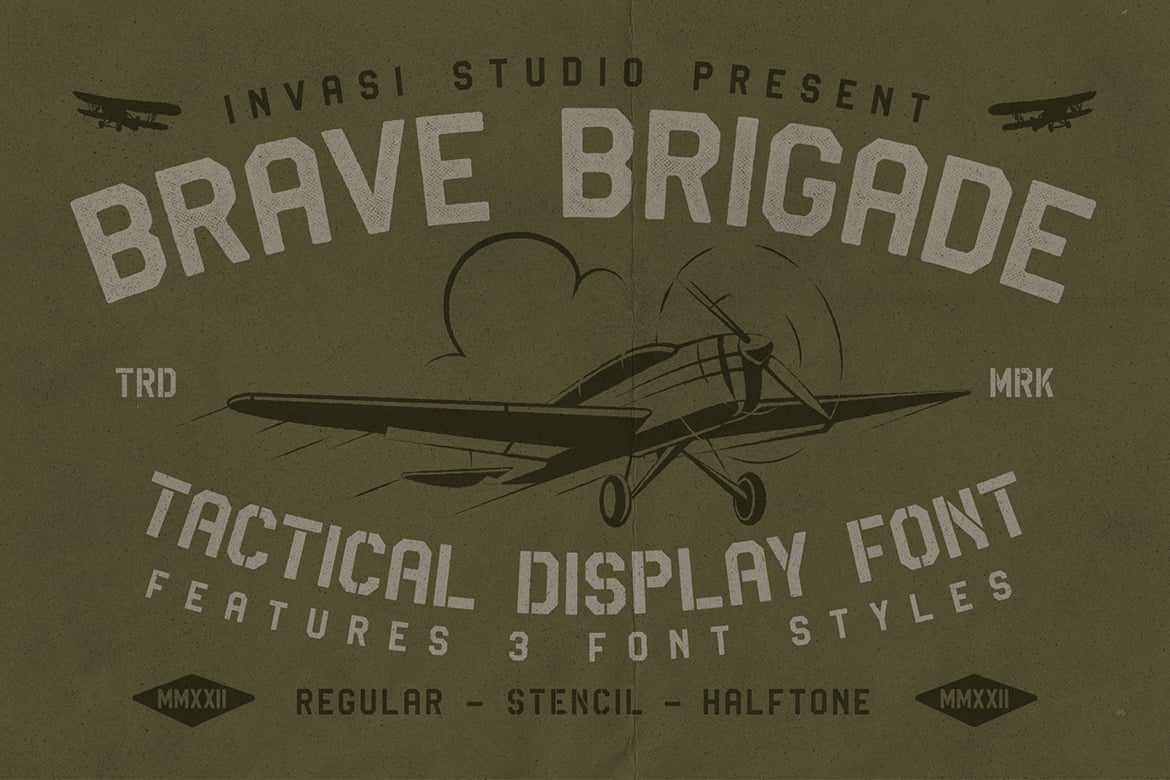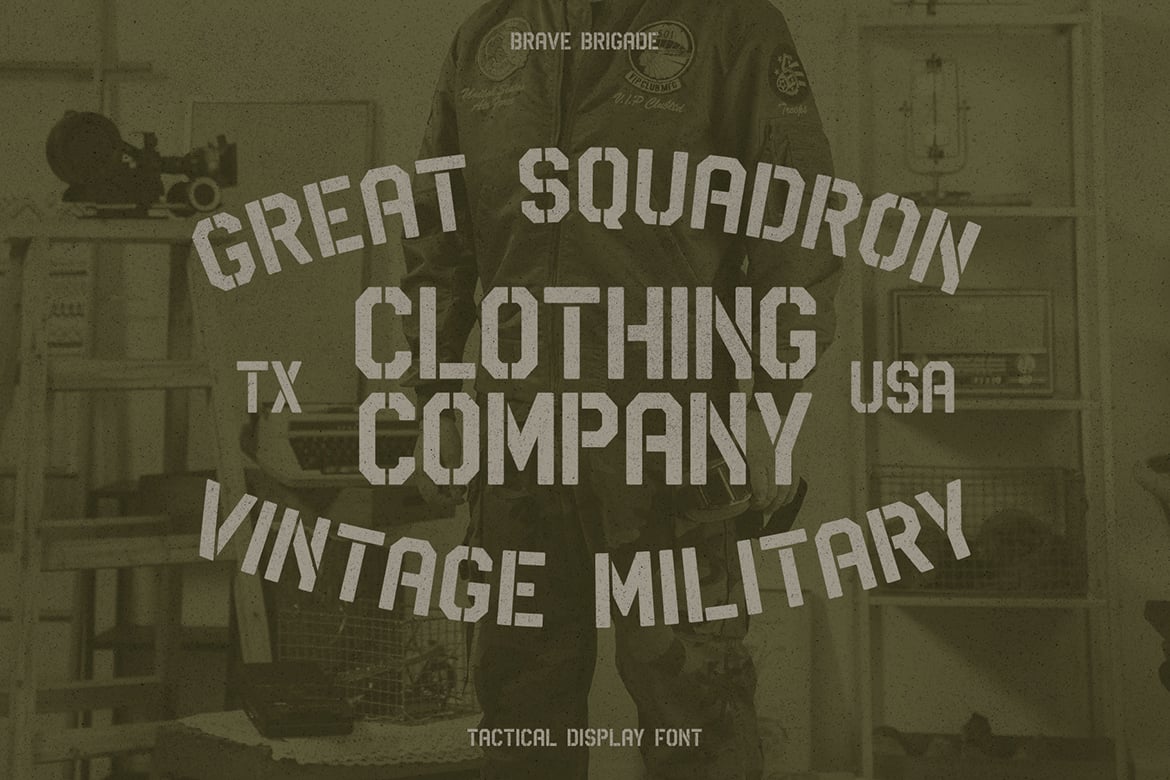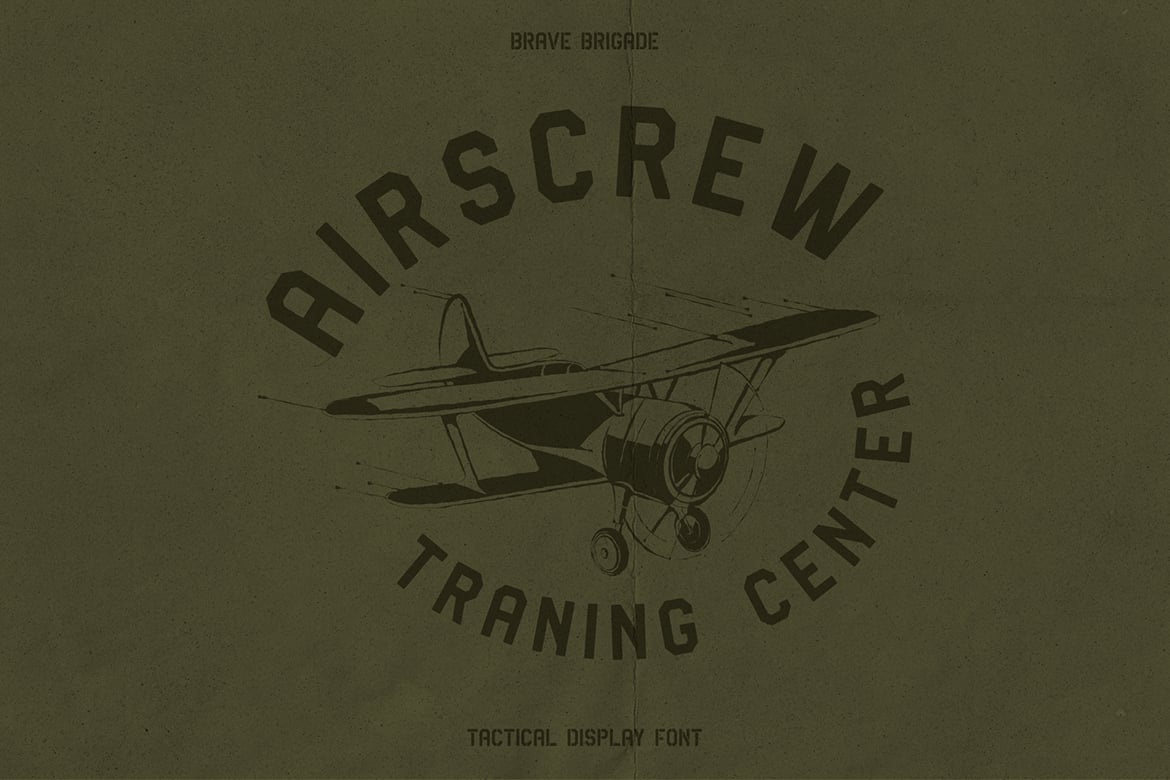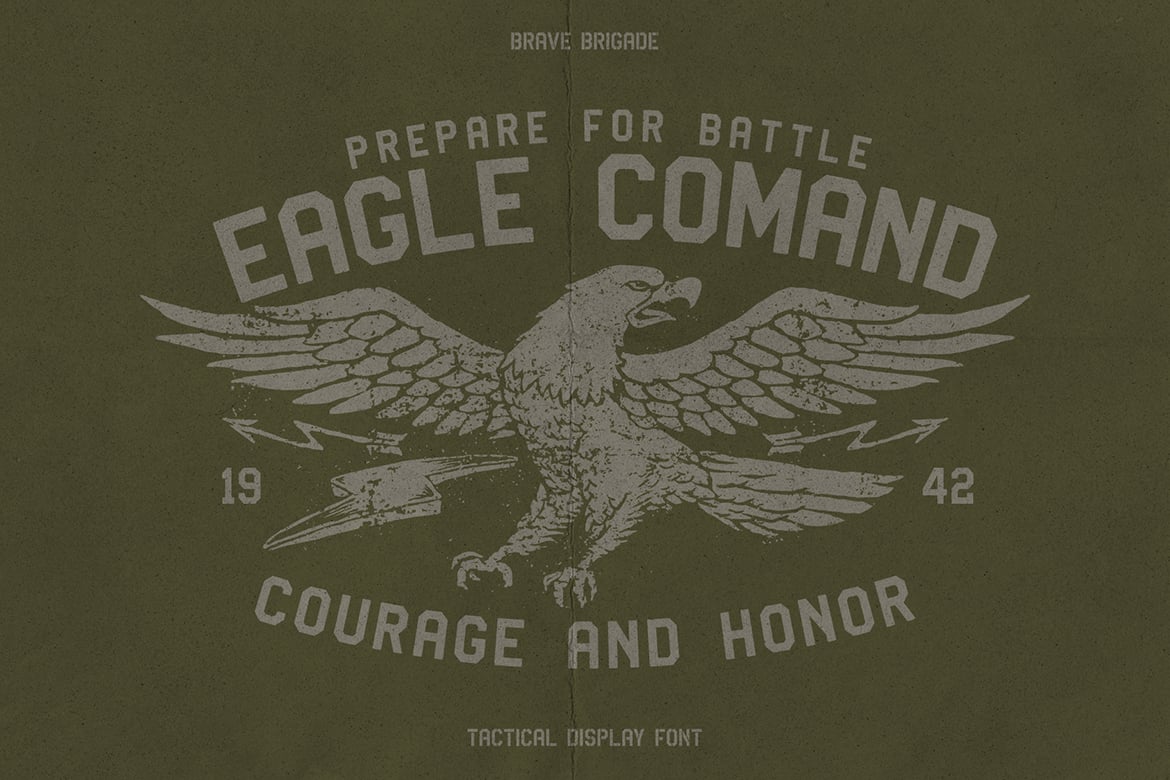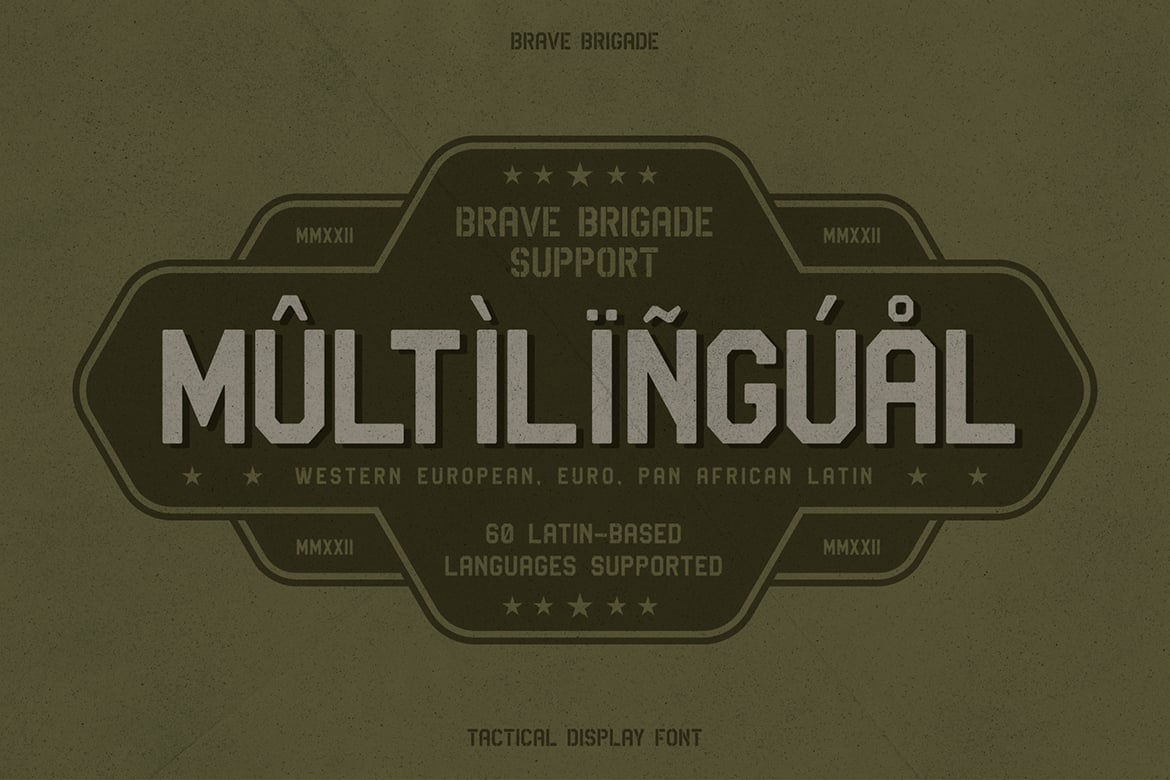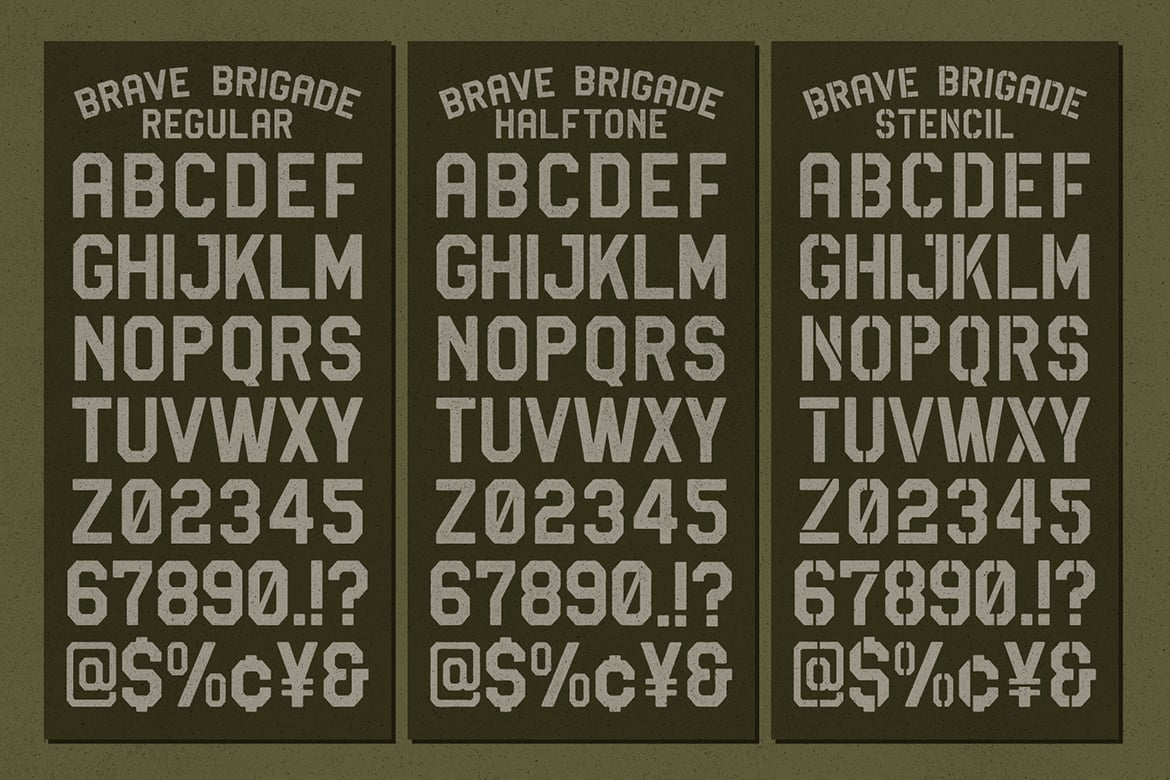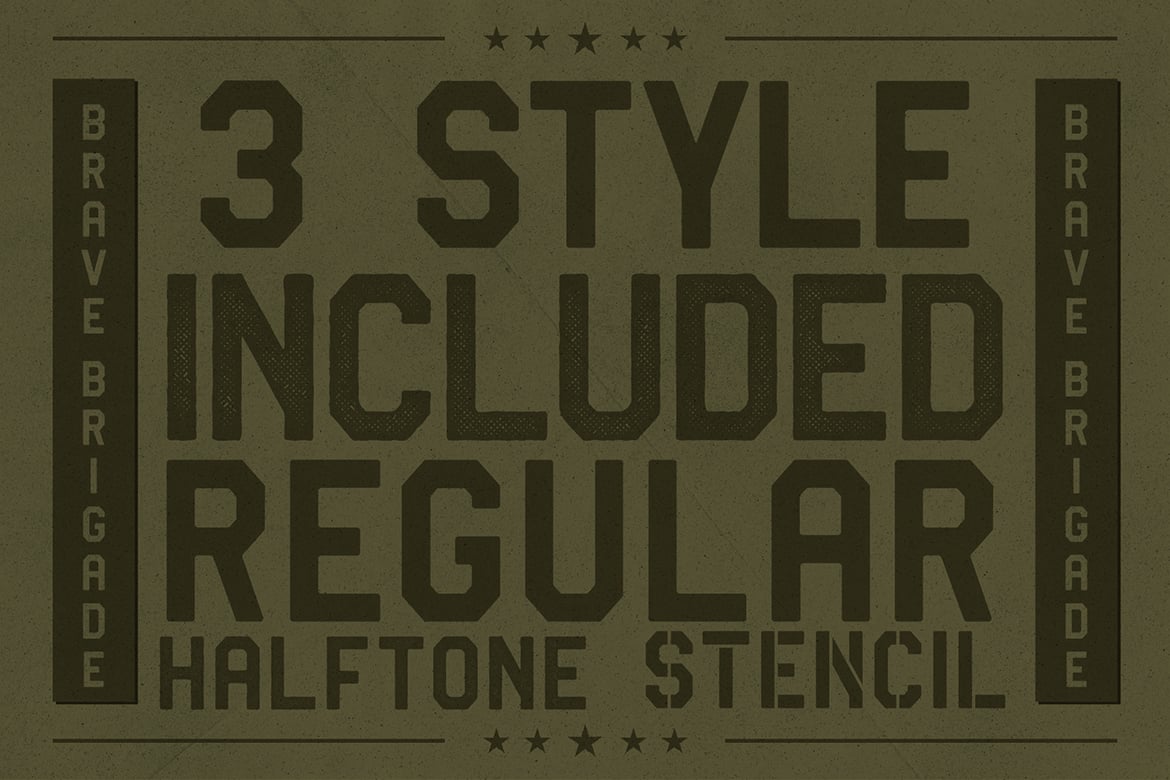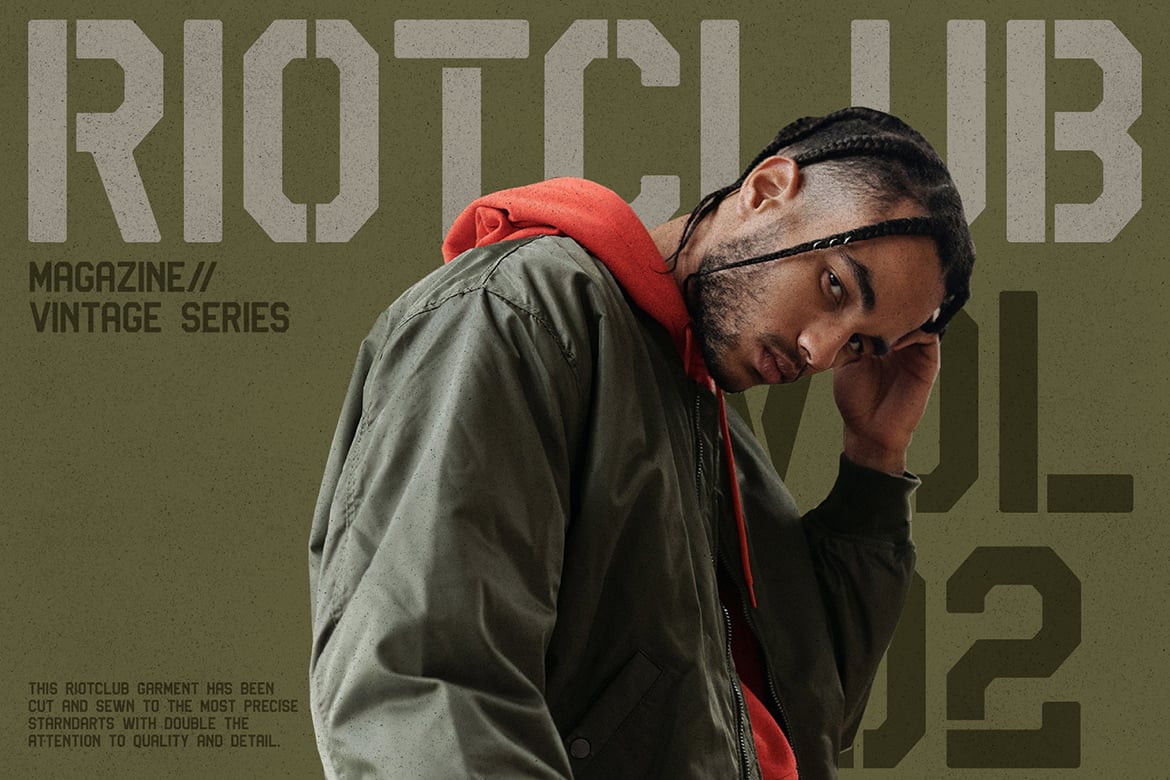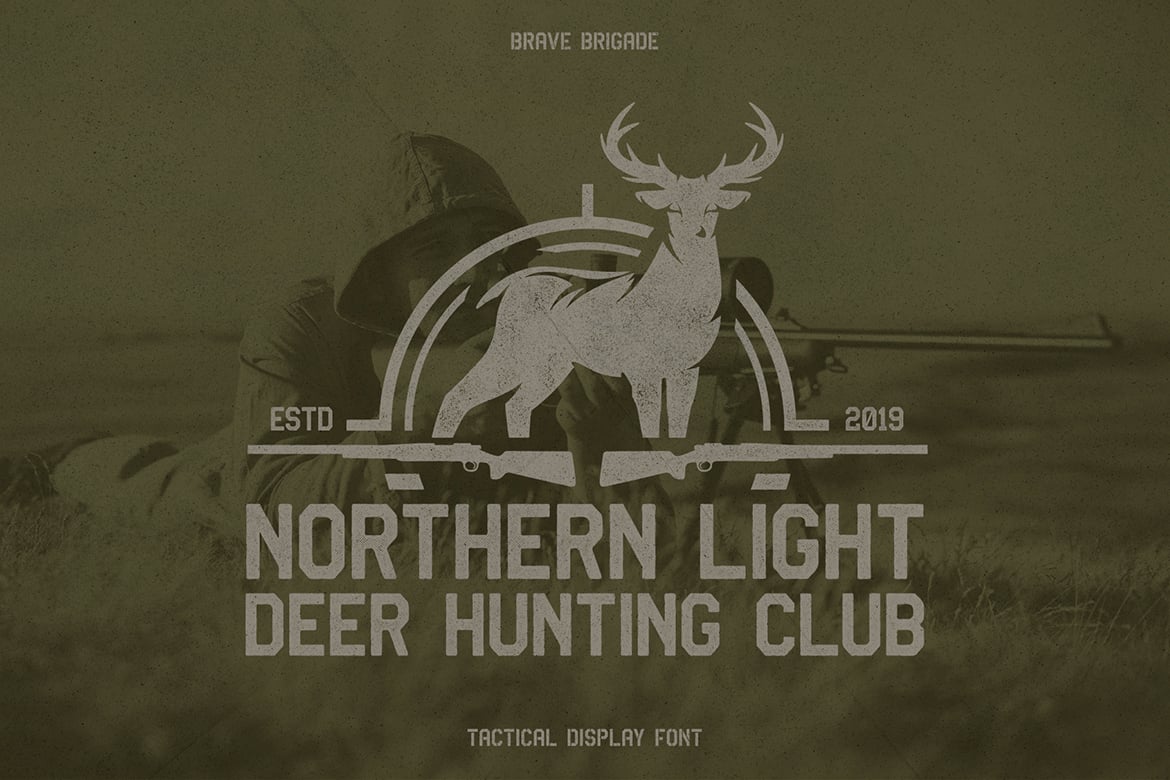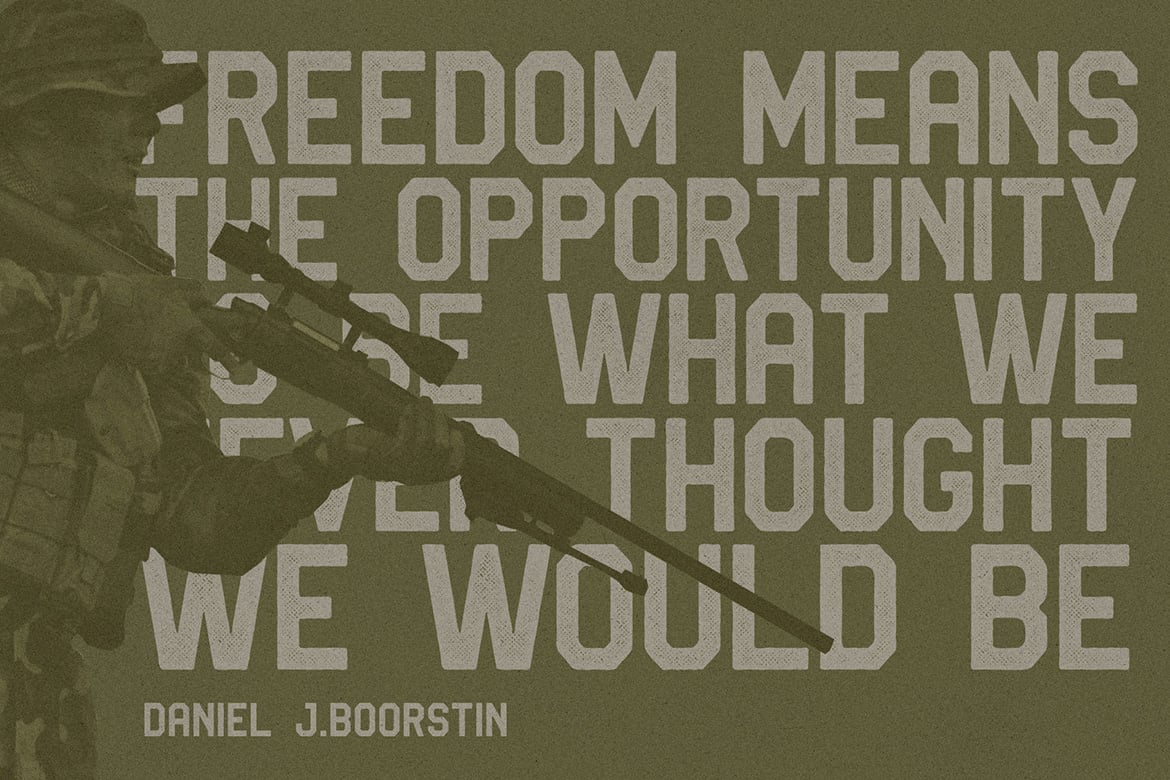
Brave Brigade – Tactical Display Font
The Brave Brigade font is inspired by military uniforms and badges. It is suitable for use as a display font for display purposes. We desire to provide military fonts that have a variety of styles not just based on military themes. It is available in three styles: regular, halftone, and military stencil. There are tons of uses for it, including branding projects, posters, packaging, magazine covers, and more.
- Multilanguage Supports 60+ Latin-based languages